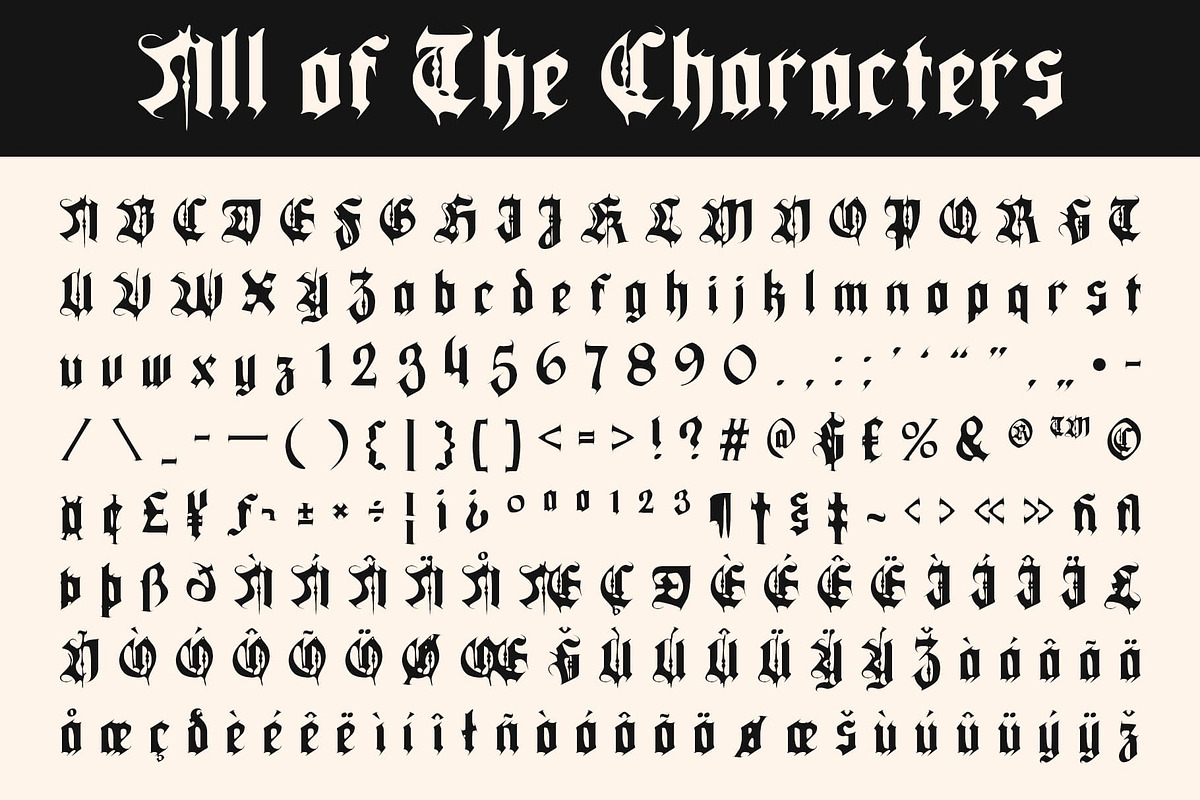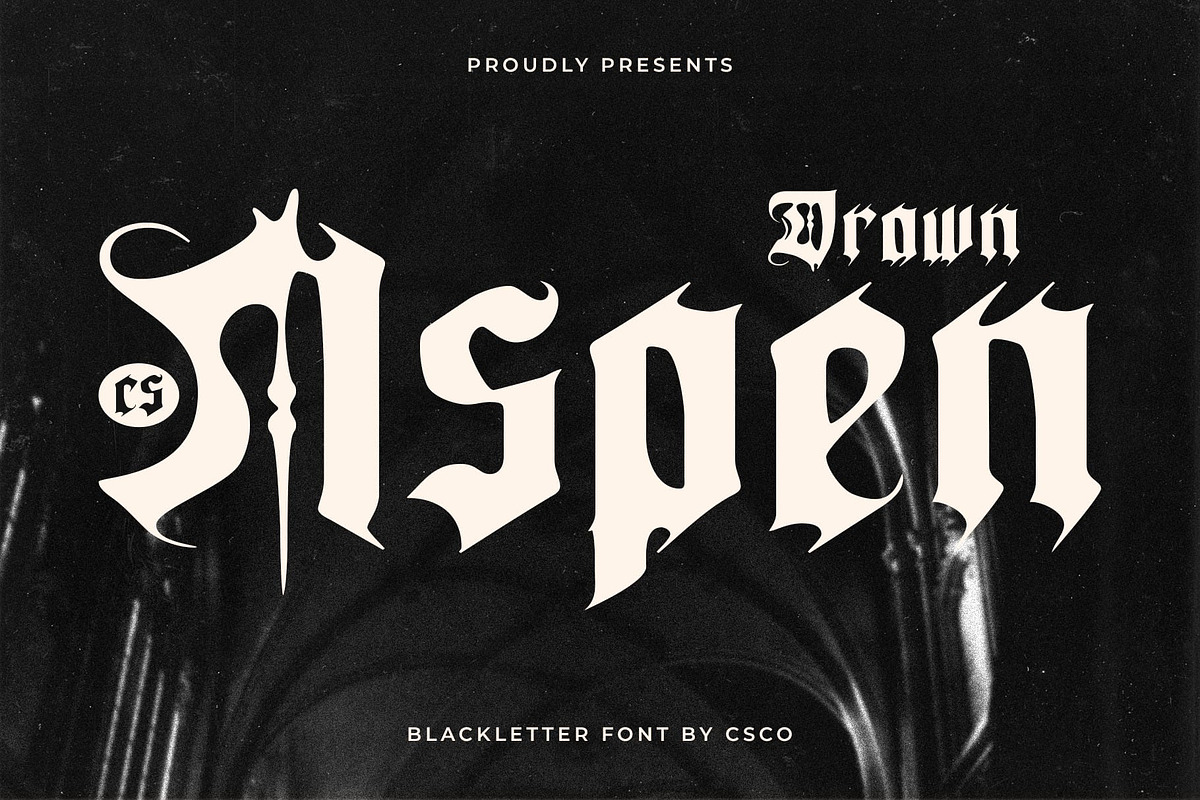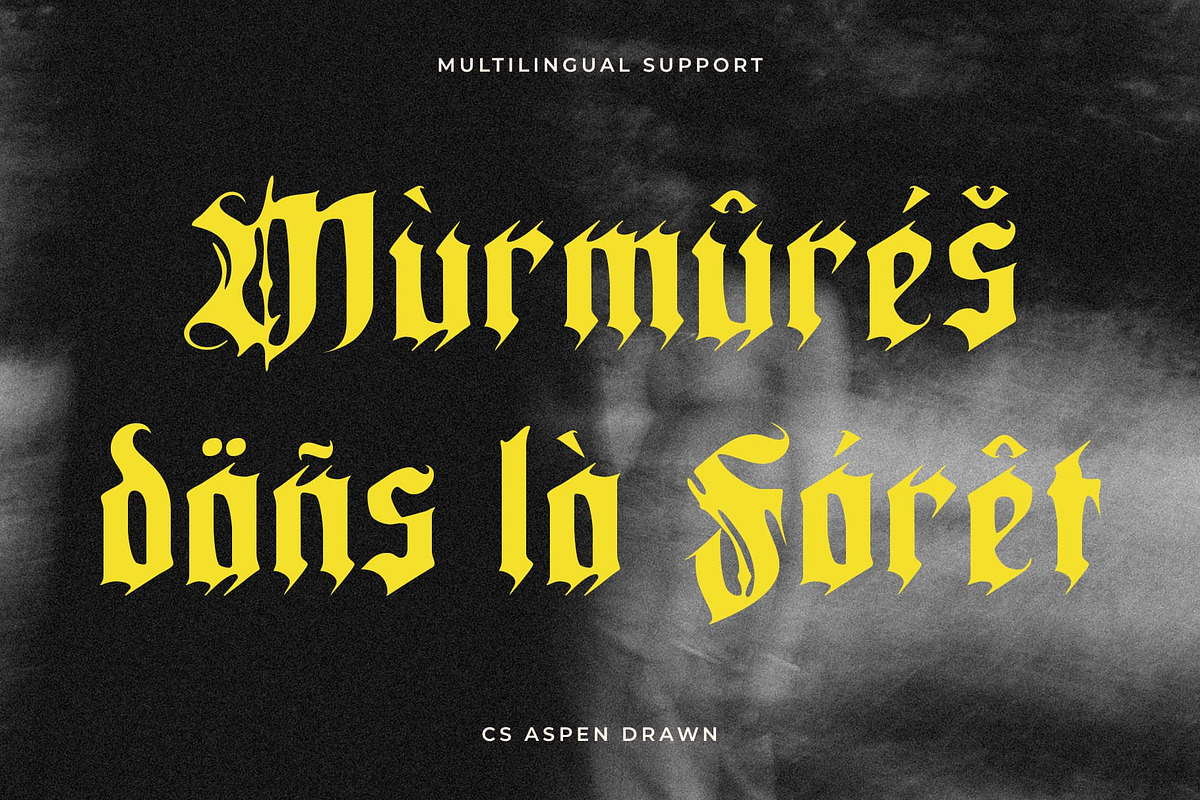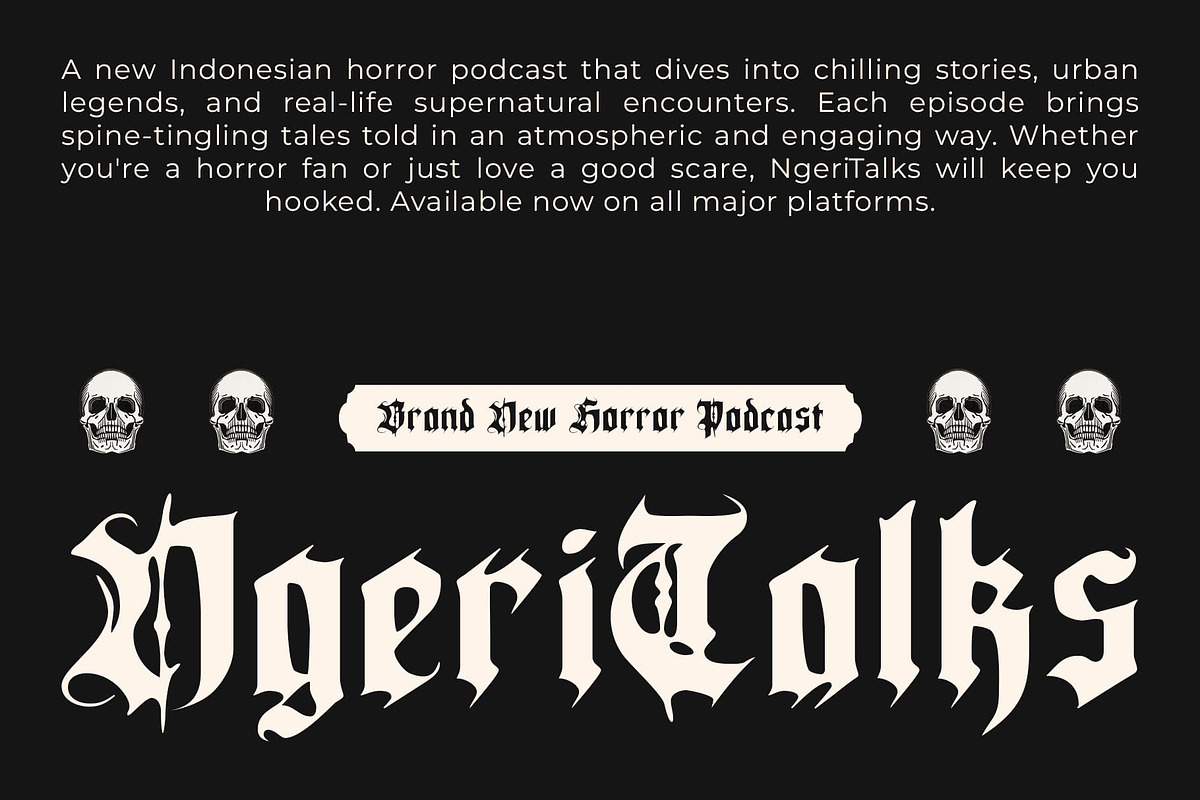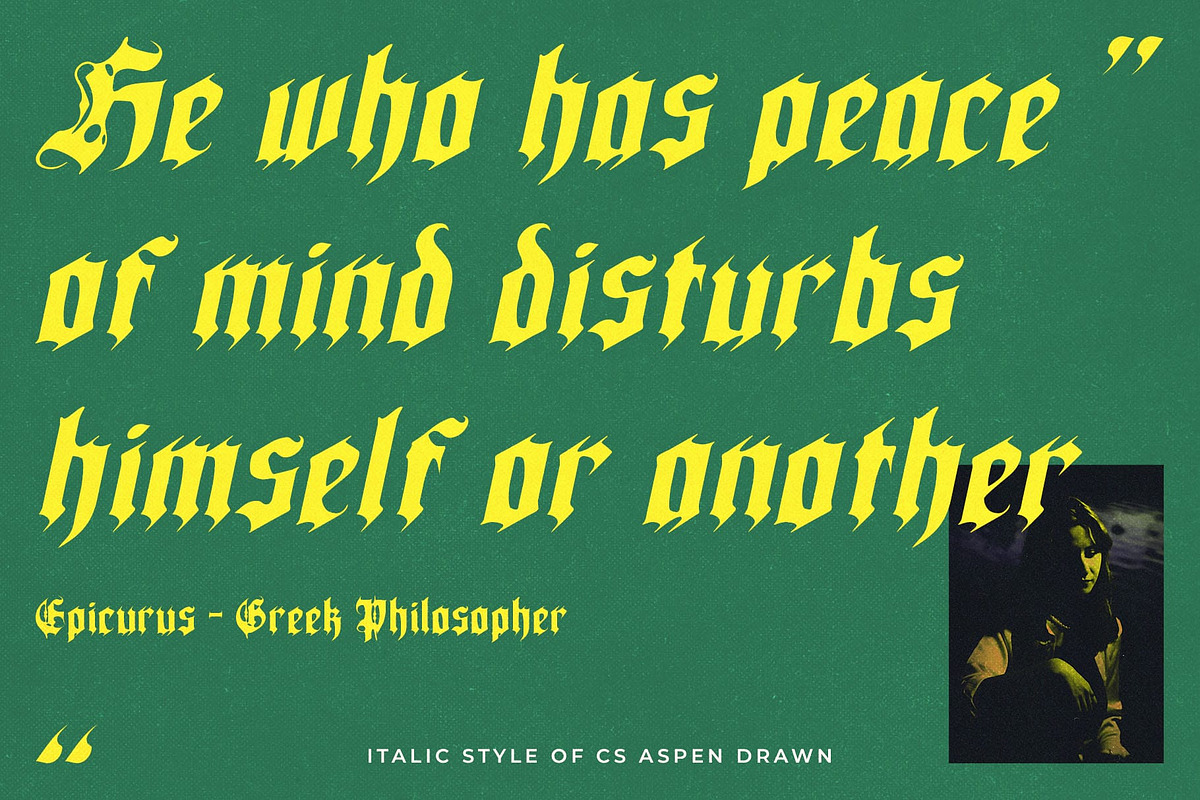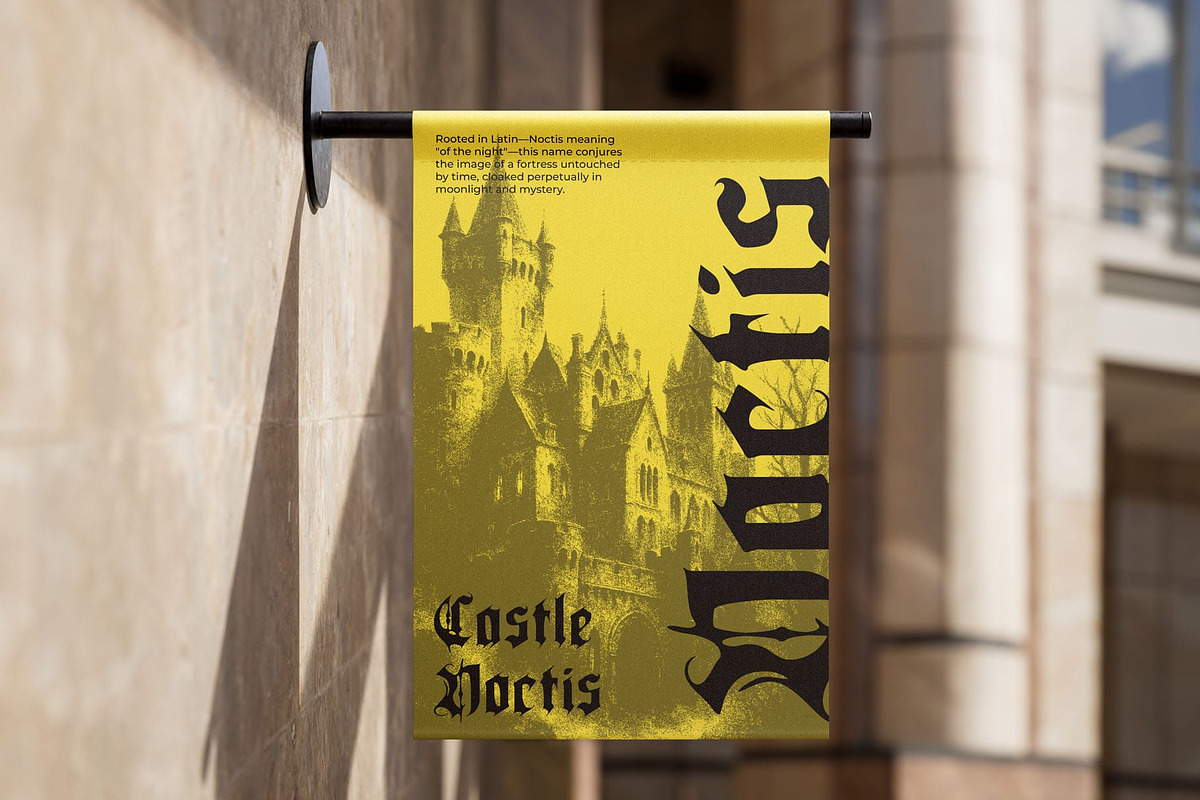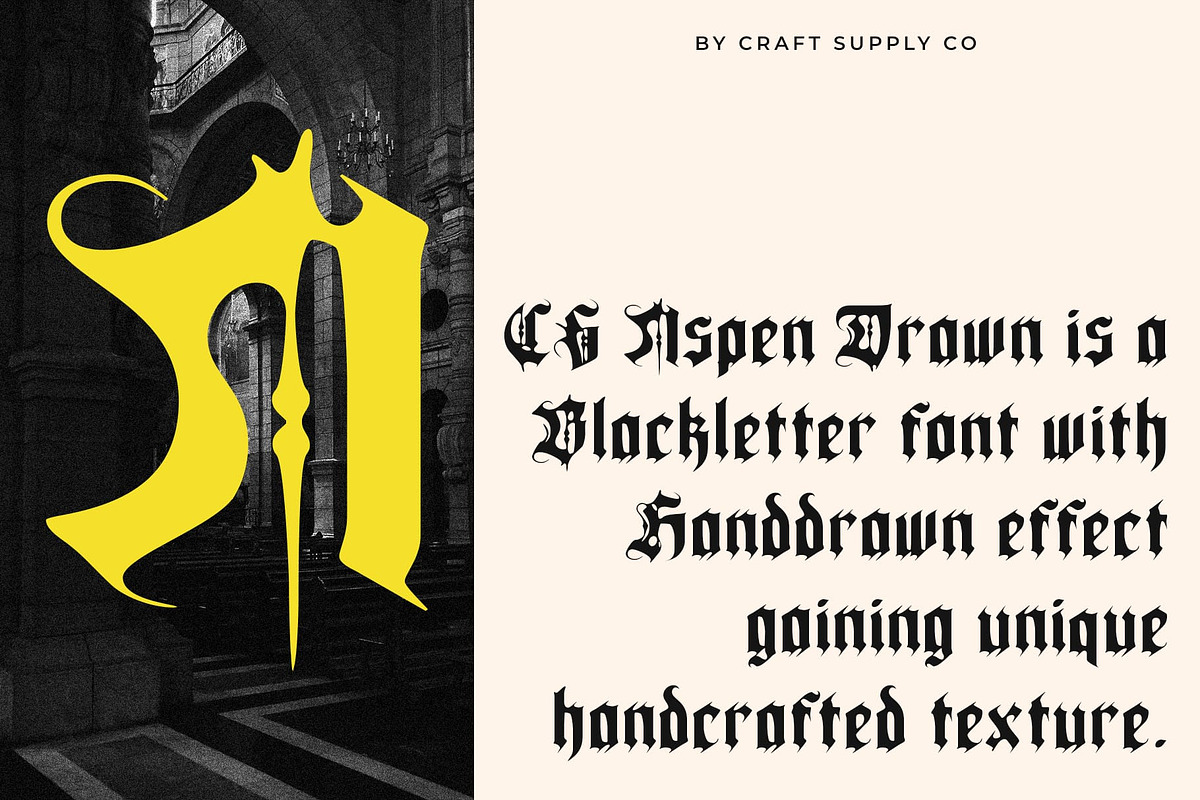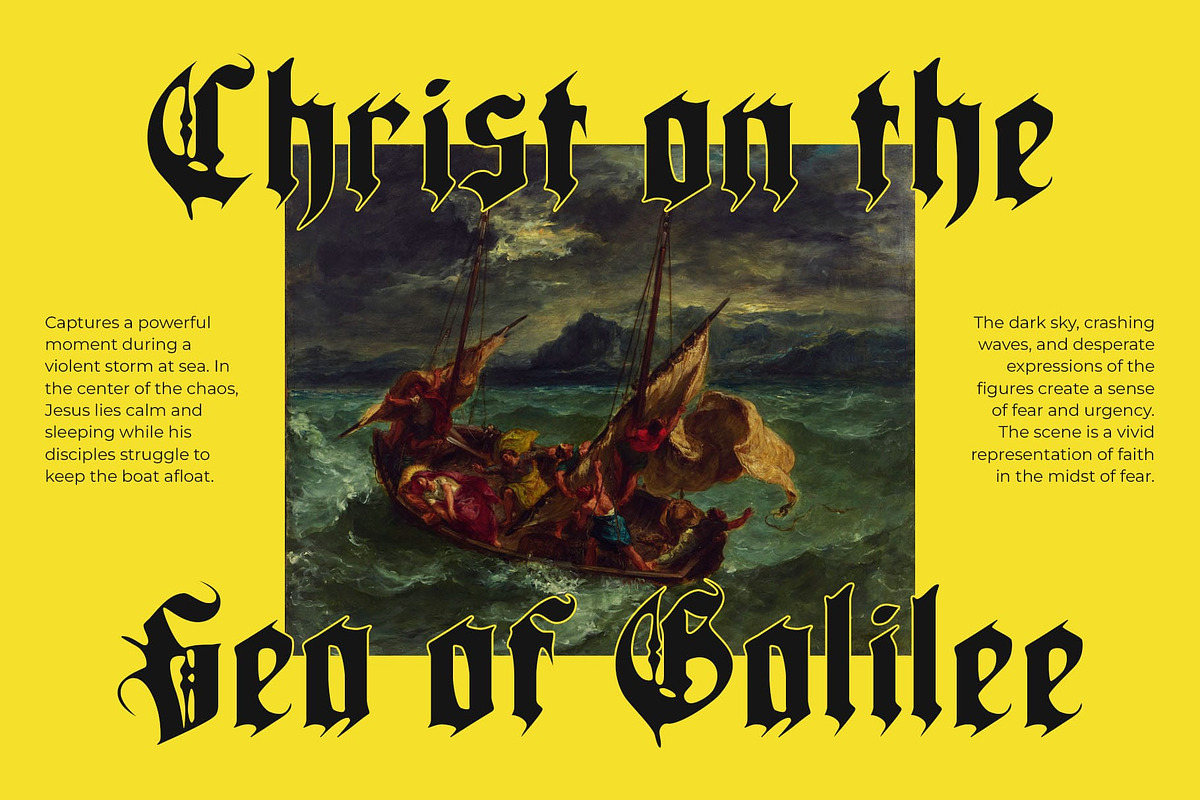
CS Aspen Drawn
CS Aspen Drawn – Raw Gothic Energy with an Artistic Edge
Bold Blackletter with Contemporary Style CS Aspen Drawn is a striking display font that reimagines traditional blackletter forms through a bold, modern lens. Its dramatic, angular letterforms embody strength and power while maintaining a stylized clarity that makes it highly readable.
Dynamic Structure with Expressive Energy Designed to command attention, each character is carefully shaped with sharp edges and high visual tension. The font’s structure exudes confidence and aggression, ideal for projects seeking a high-impact typographic presence. Its strong vertical emphasis and compact spacing contribute to a punchy, dynamic rhythm across layouts—perfect for adding attitude and energy to your message.
Drawn Effect for Handcrafted Texture What sets this artistic rebellion font apart is its subtle drawn effect. This handcrafted texture adds an organic, raw edge to the otherwise geometric construction, giving the font a lived-in and authentic look. The result is a typeface that feels expressive and unique—perfect for designers who value detail, artistry, and emotional texture in their work.
Perfect for Bold, Urban, and Experimental Projects This unique font excels in high-energy visual environments such as music-related graphics, underground zines, fashion editorials, streetwear branding, or art installations. It’s ideal for projects that want to communicate a rebellious, mysterious, or alternative identity.